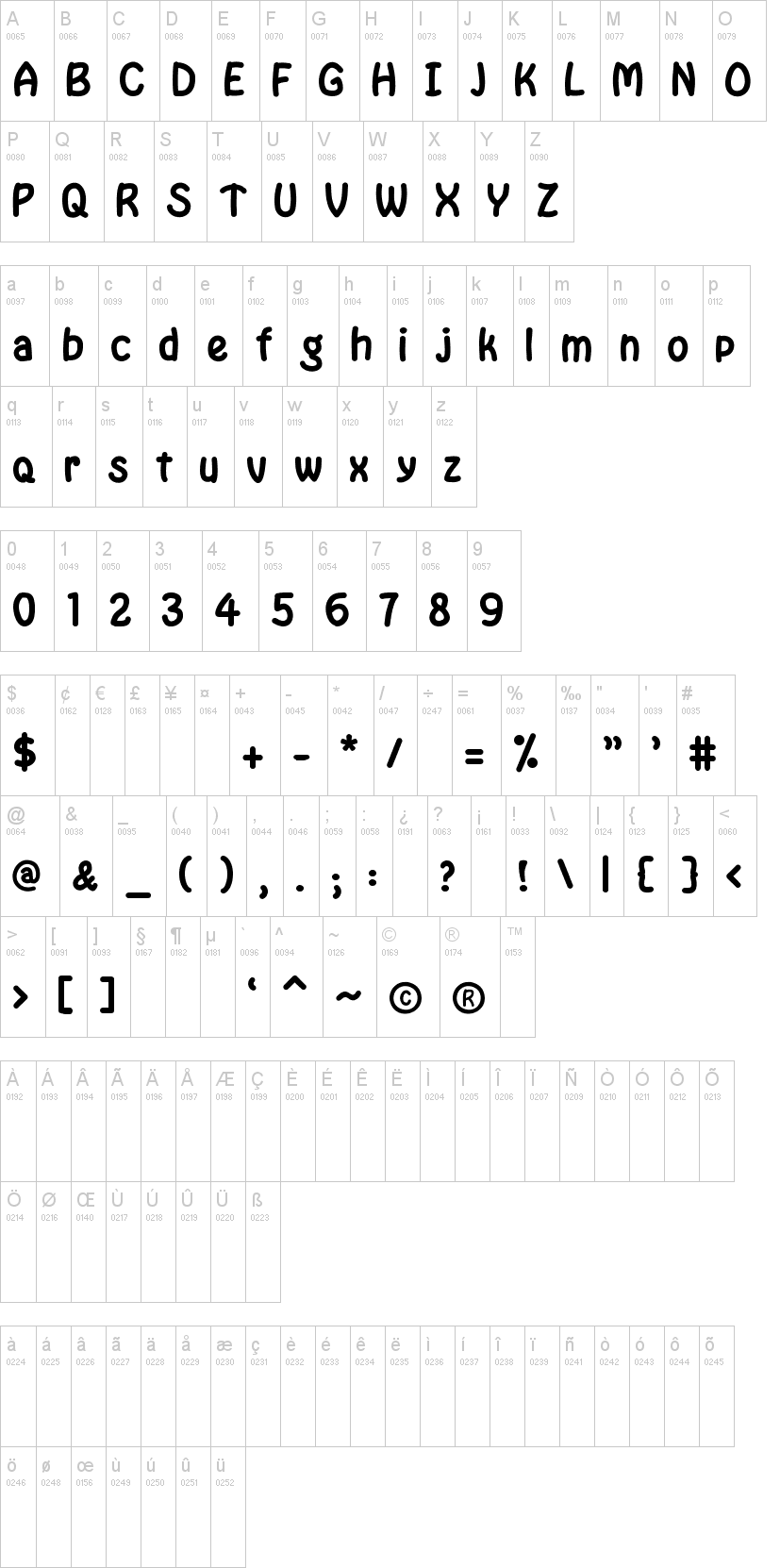
Sandspit was created when I vacationed to a choppy beach in the southern part of Flores Island, Indonesia, precisely Sikka Village. When the waves sweep the sand to come back again, you can see soft curves on the sand highlighted by the twilight of the sun. Created a Sandspit Font, Hopefully you are pleased and happy to use it.